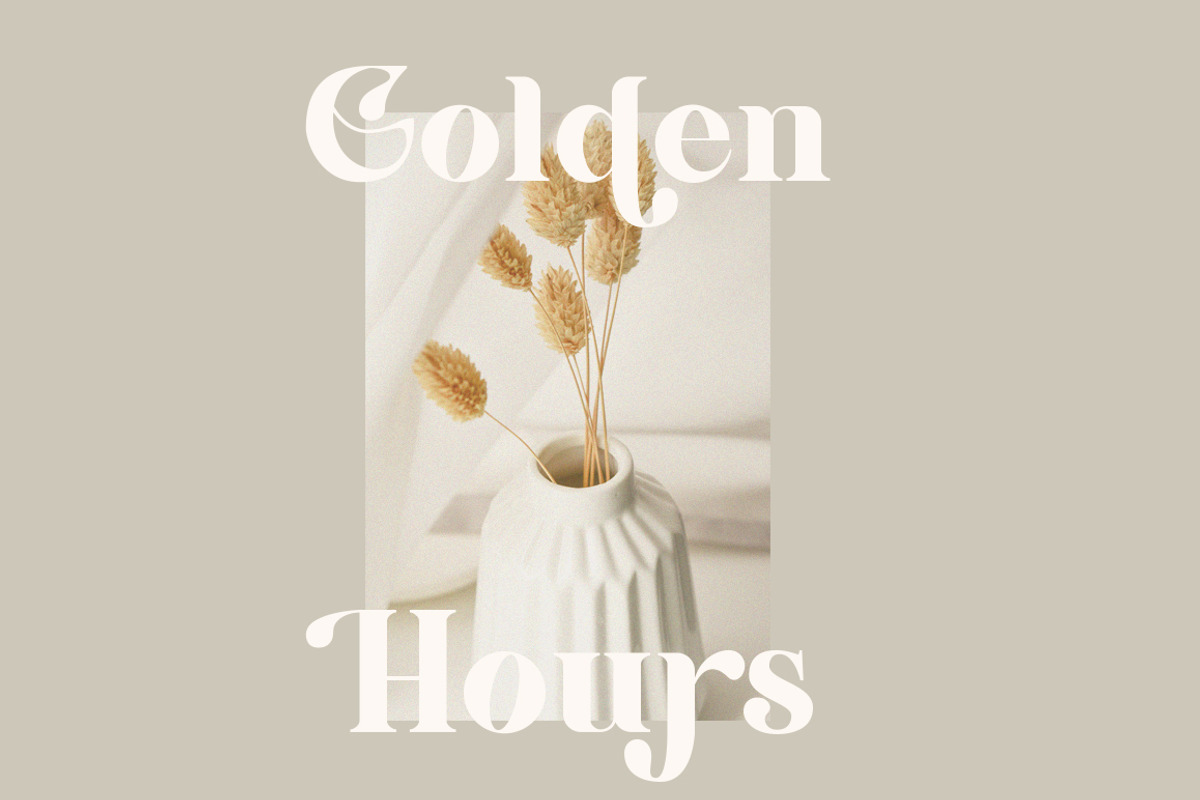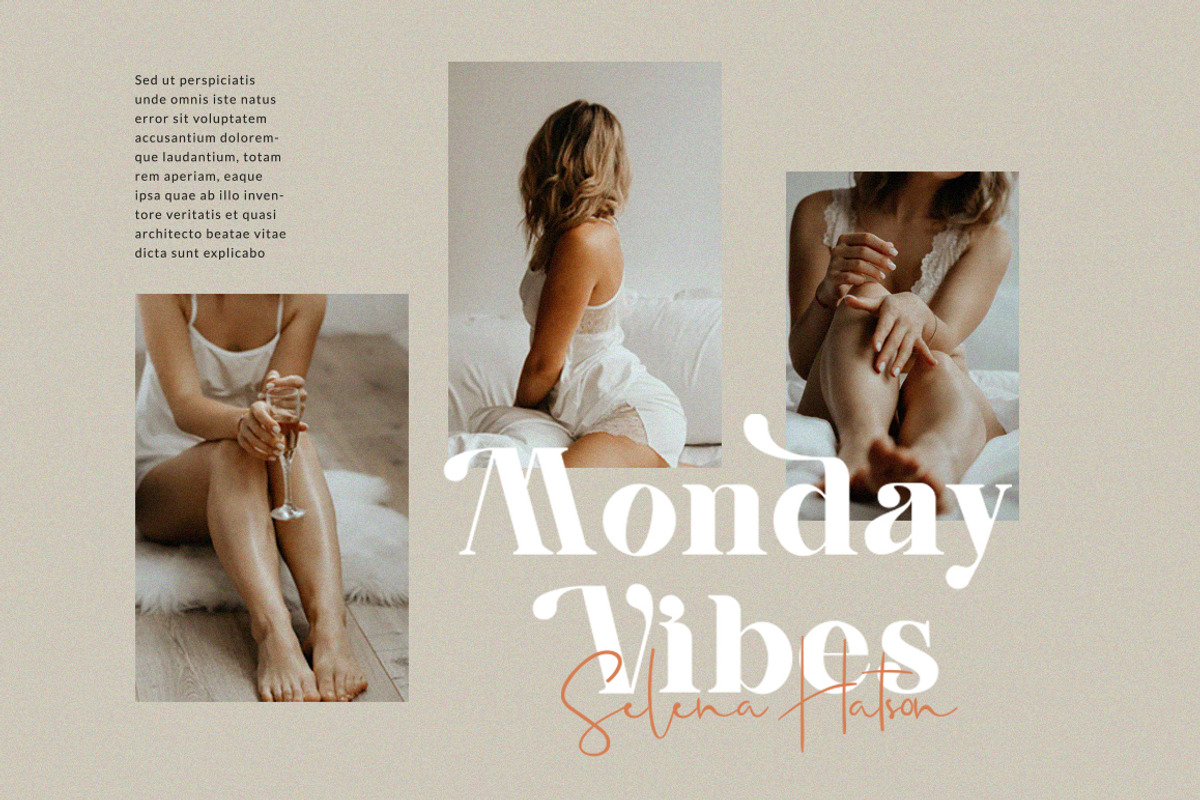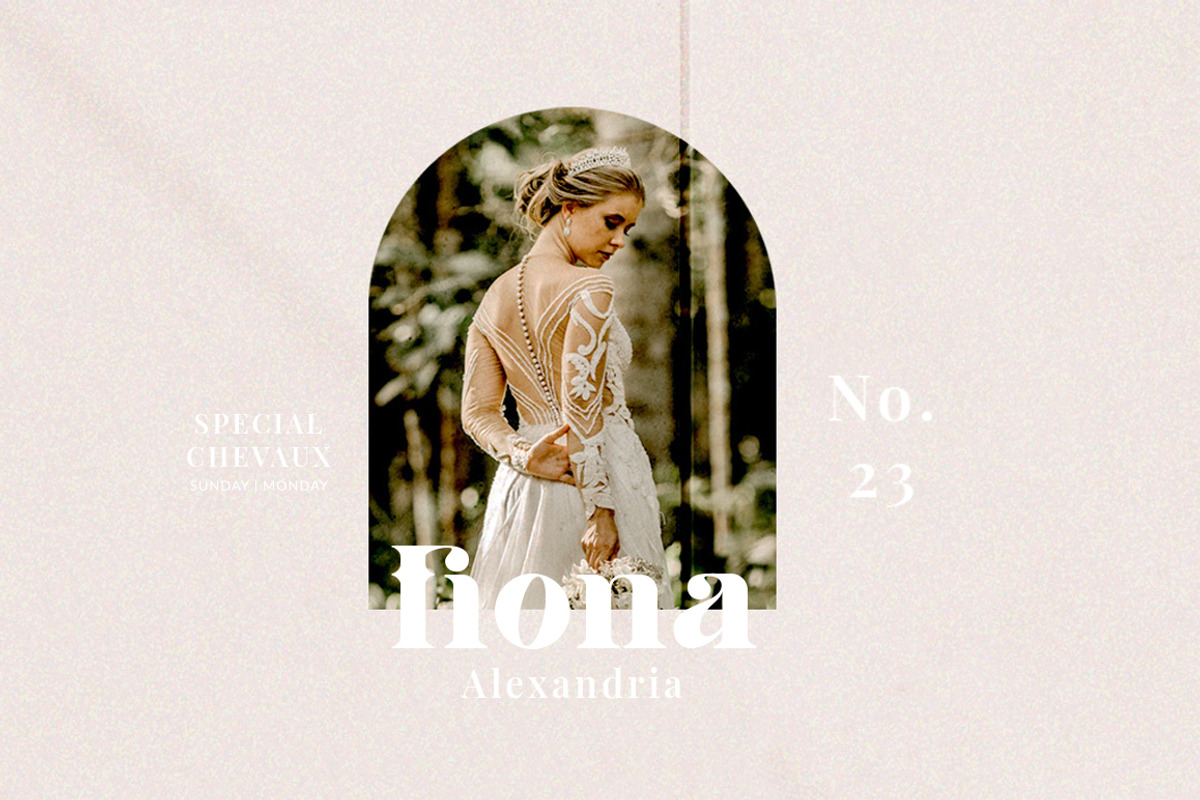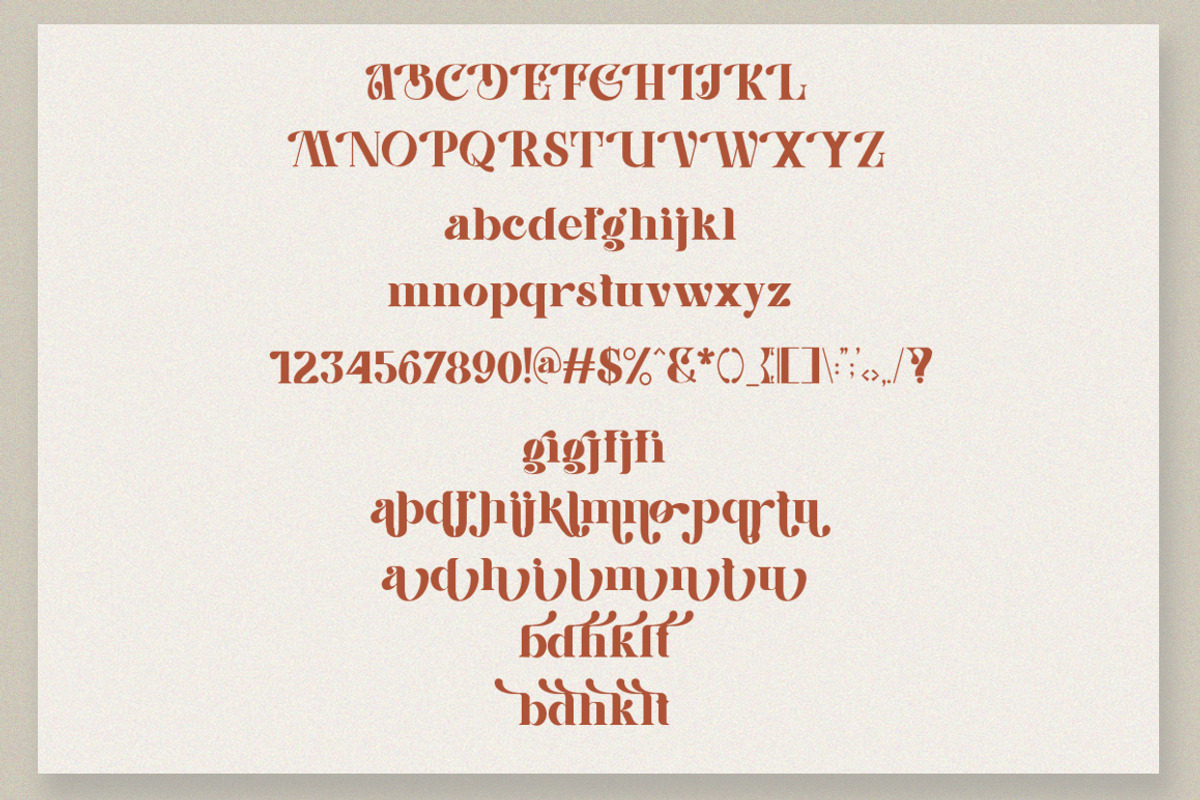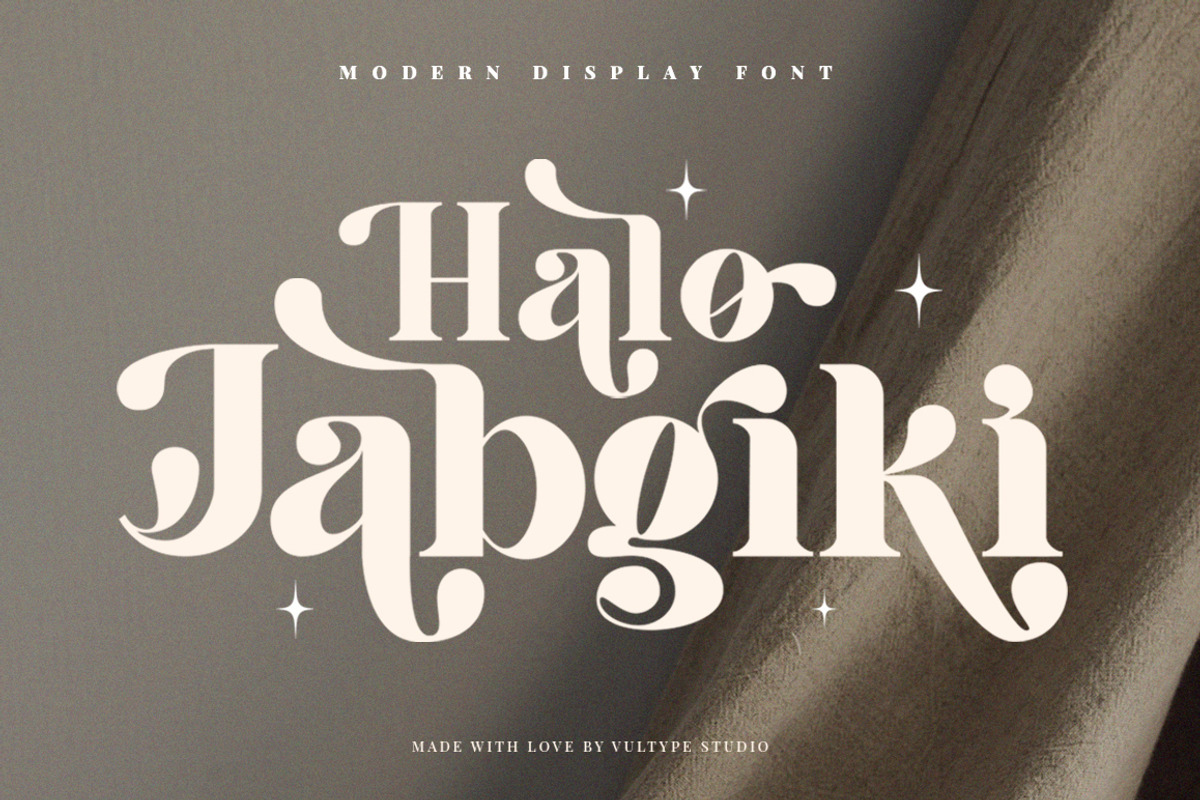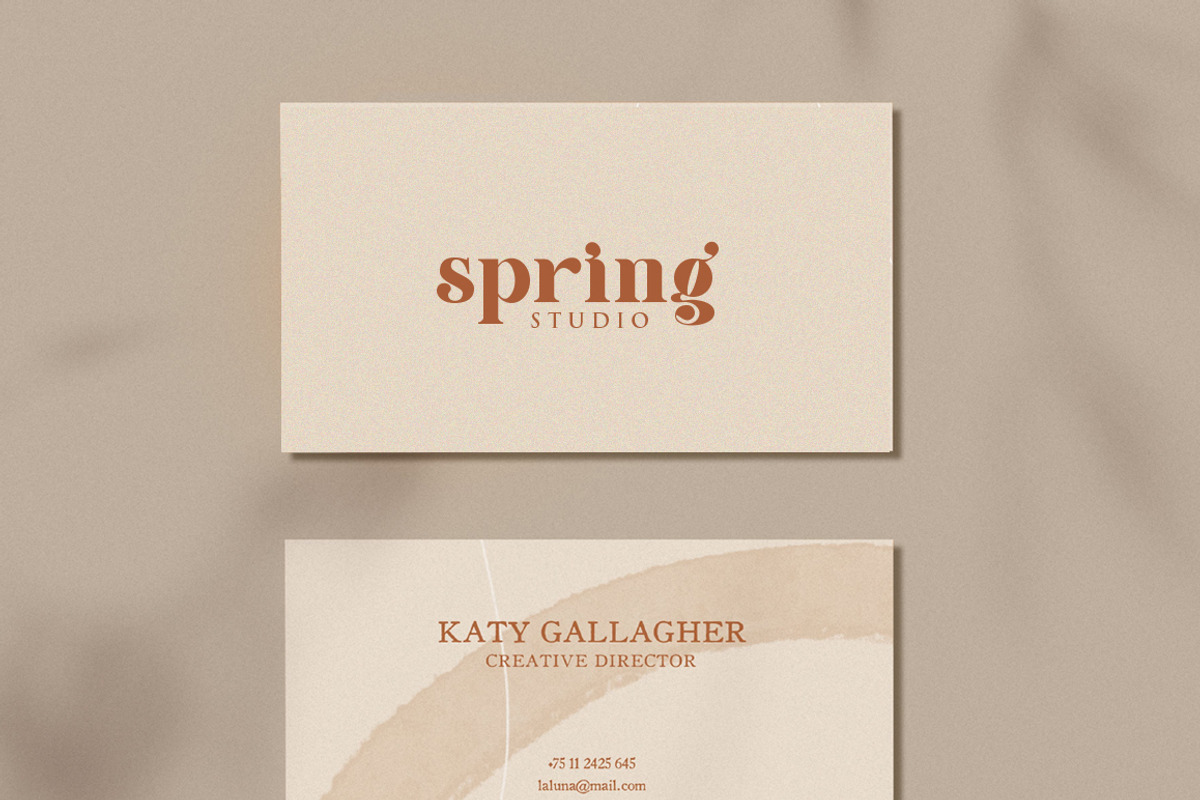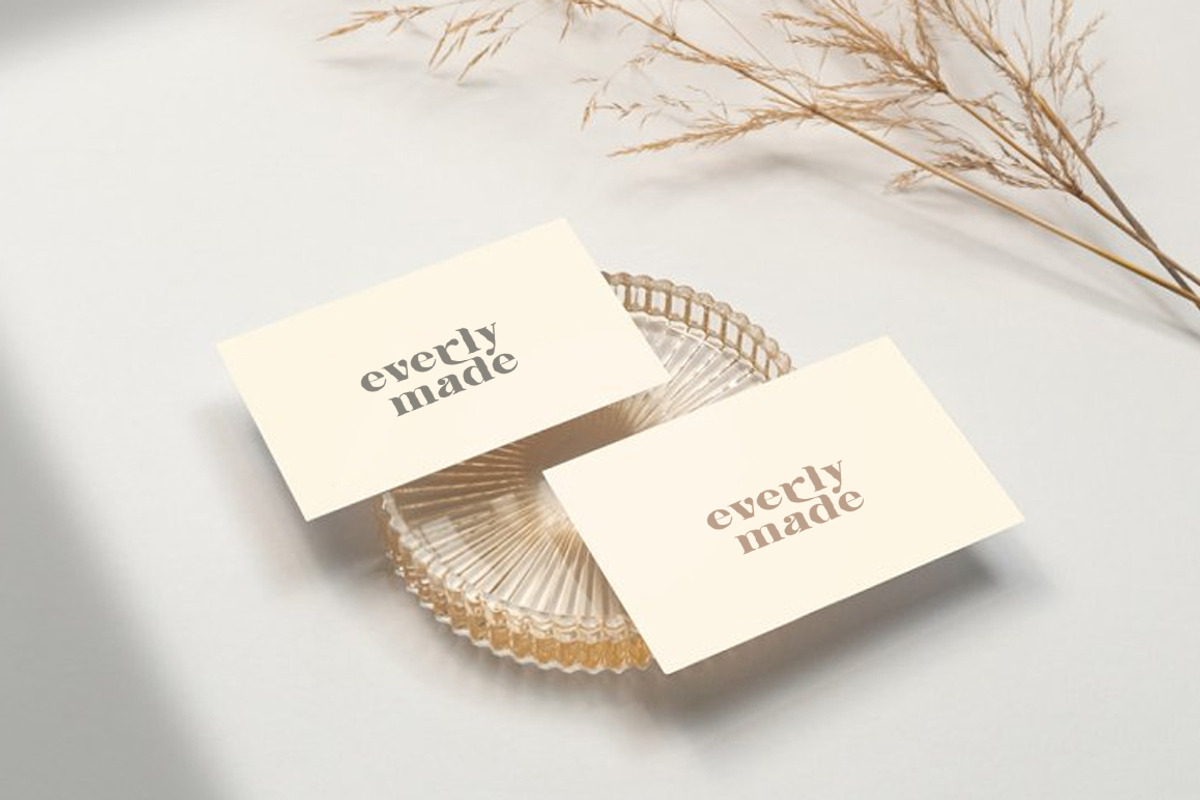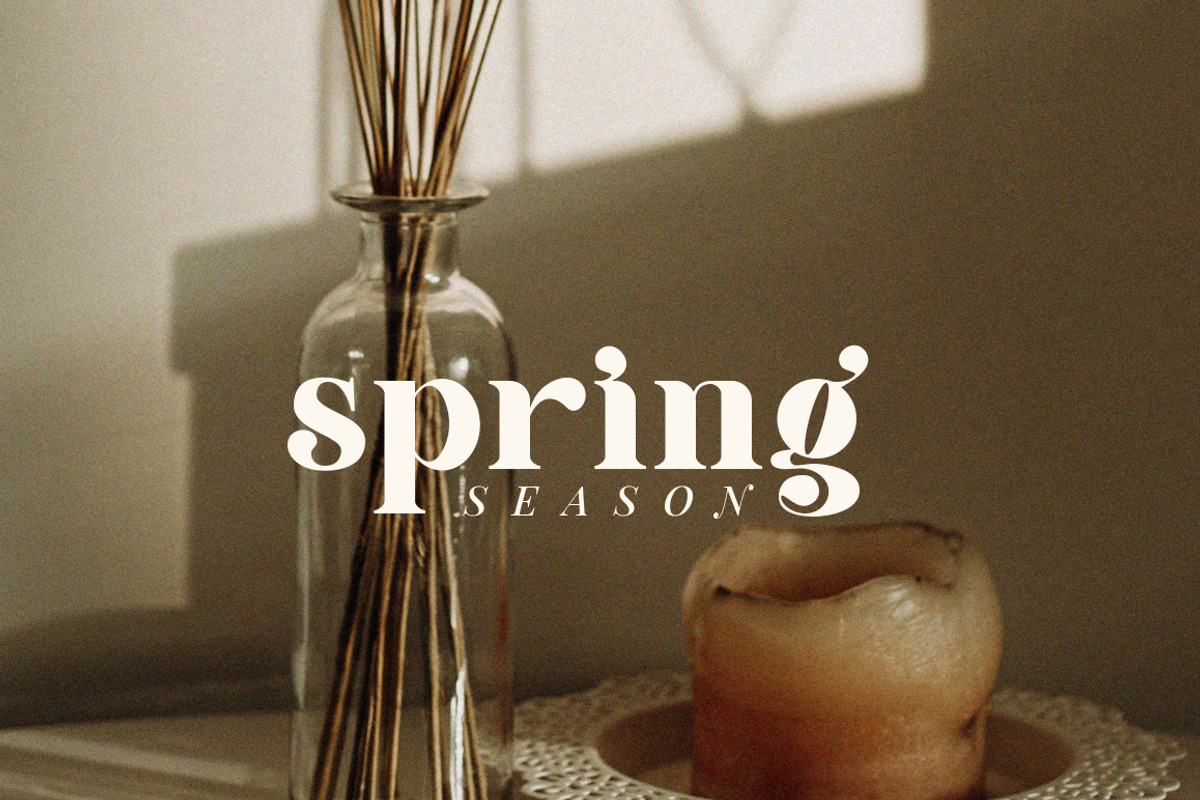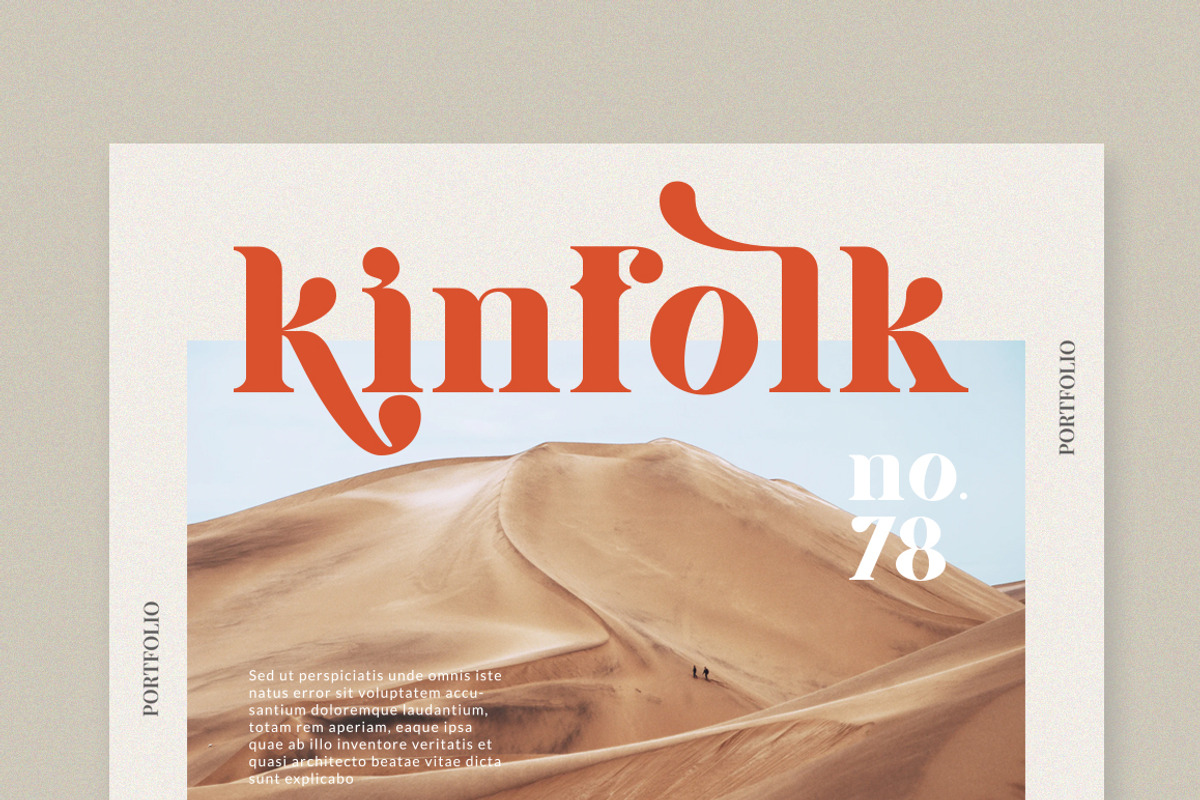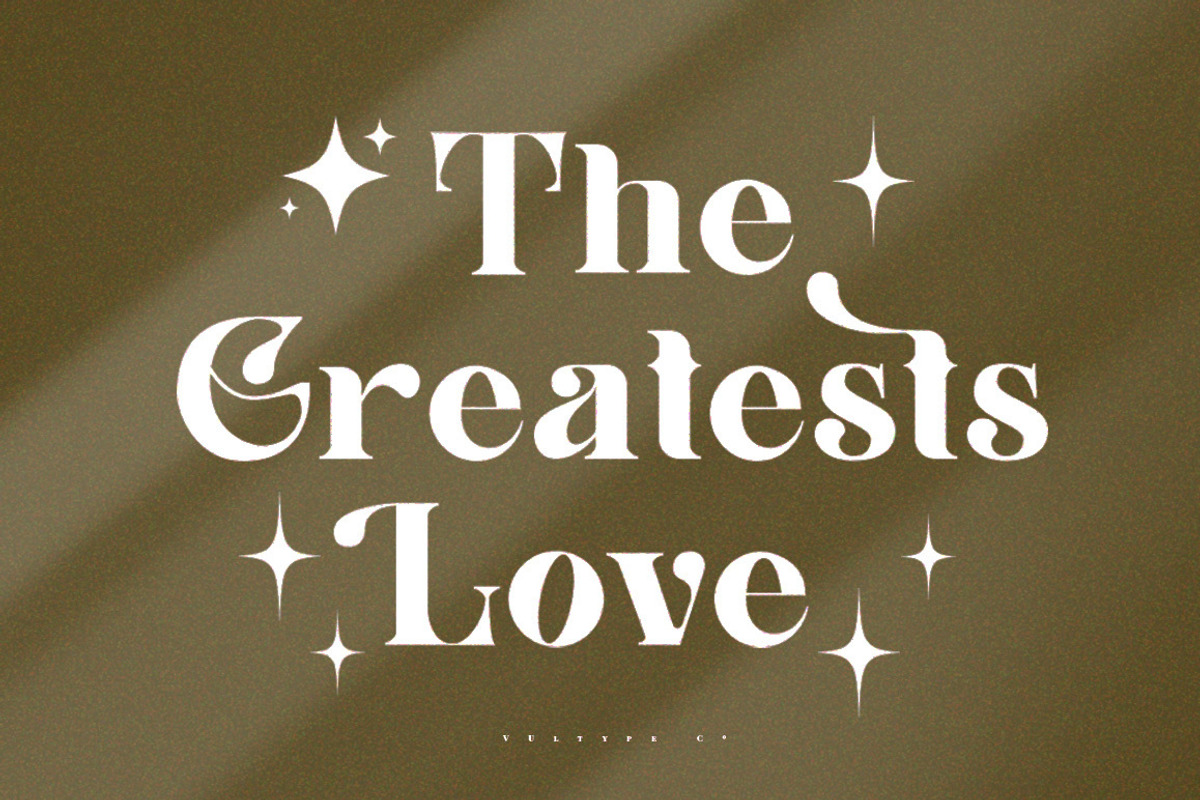
Jabgiki - Bold Serif Font
Jabgiki - Bold Serif Font is a stylish font It has both modern and retro look. Comes with alternatives and ligatures, helps to create stunning logos, quotes, posts, blog posts. branding projects, magazine imagery, wedding invitations, and much more.
- Unique Letterforms